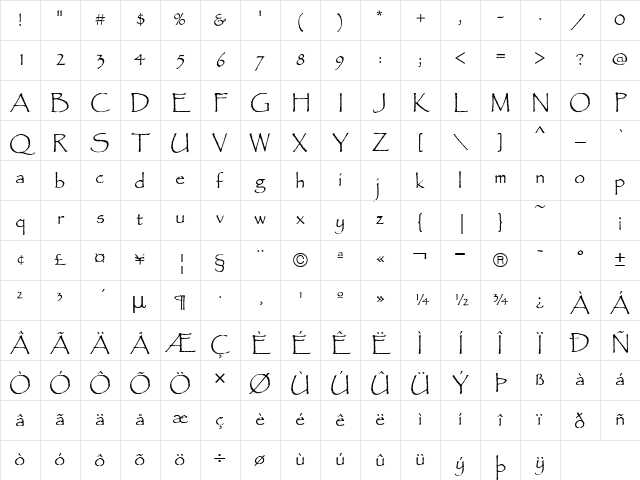
Papyrus ICG Regular Free Font
Papyrus ICG Regular
Papyrus ICG Family
Complete Papyrus ICG Regular glyph index. Displaying only characters natively supported by Papyrus ICG Regular font.
Design Context for Papyrus ICG
Papyrus ICG is a composed and adaptable typeface that performs quietly and consistently across a wide range of design contexts.